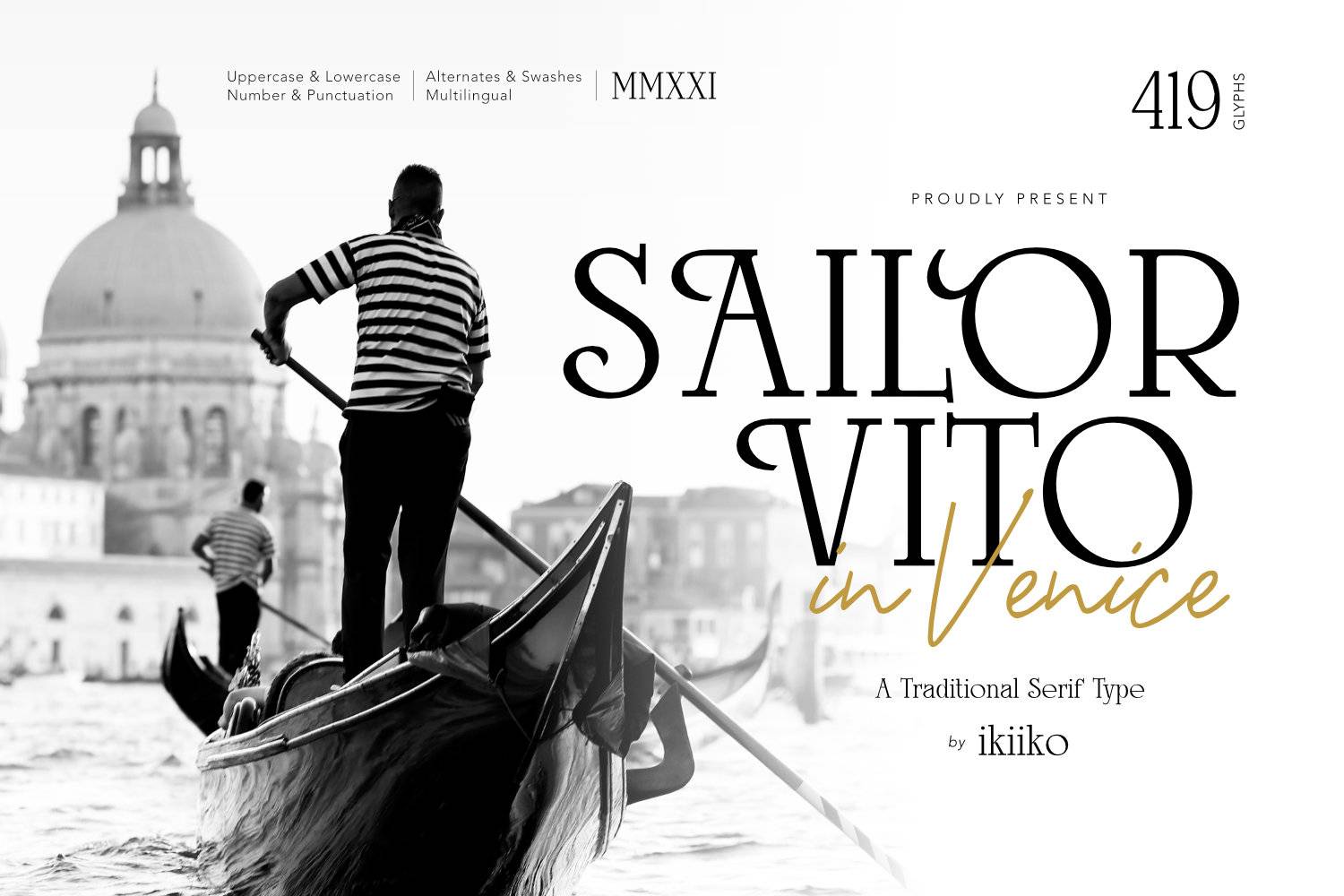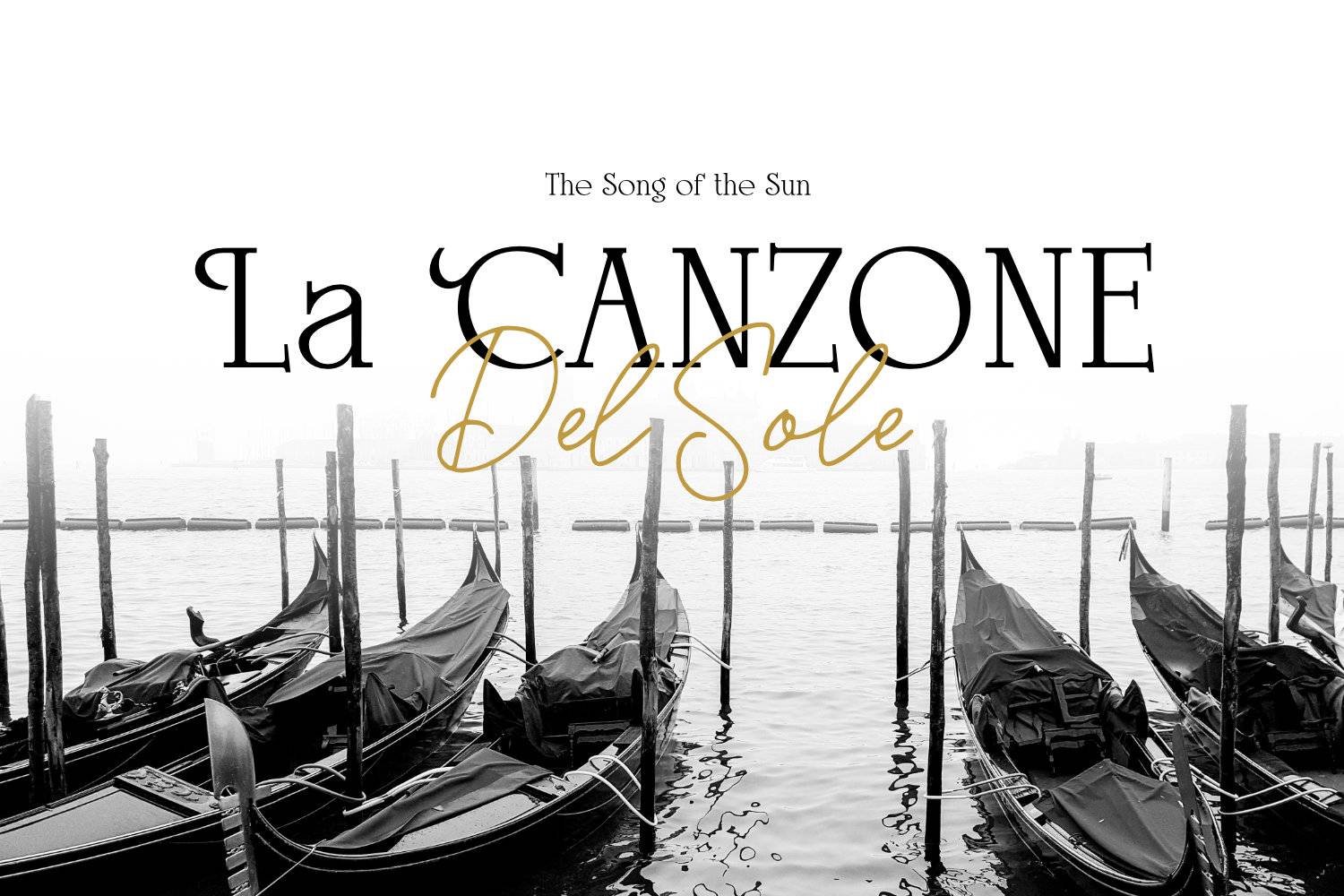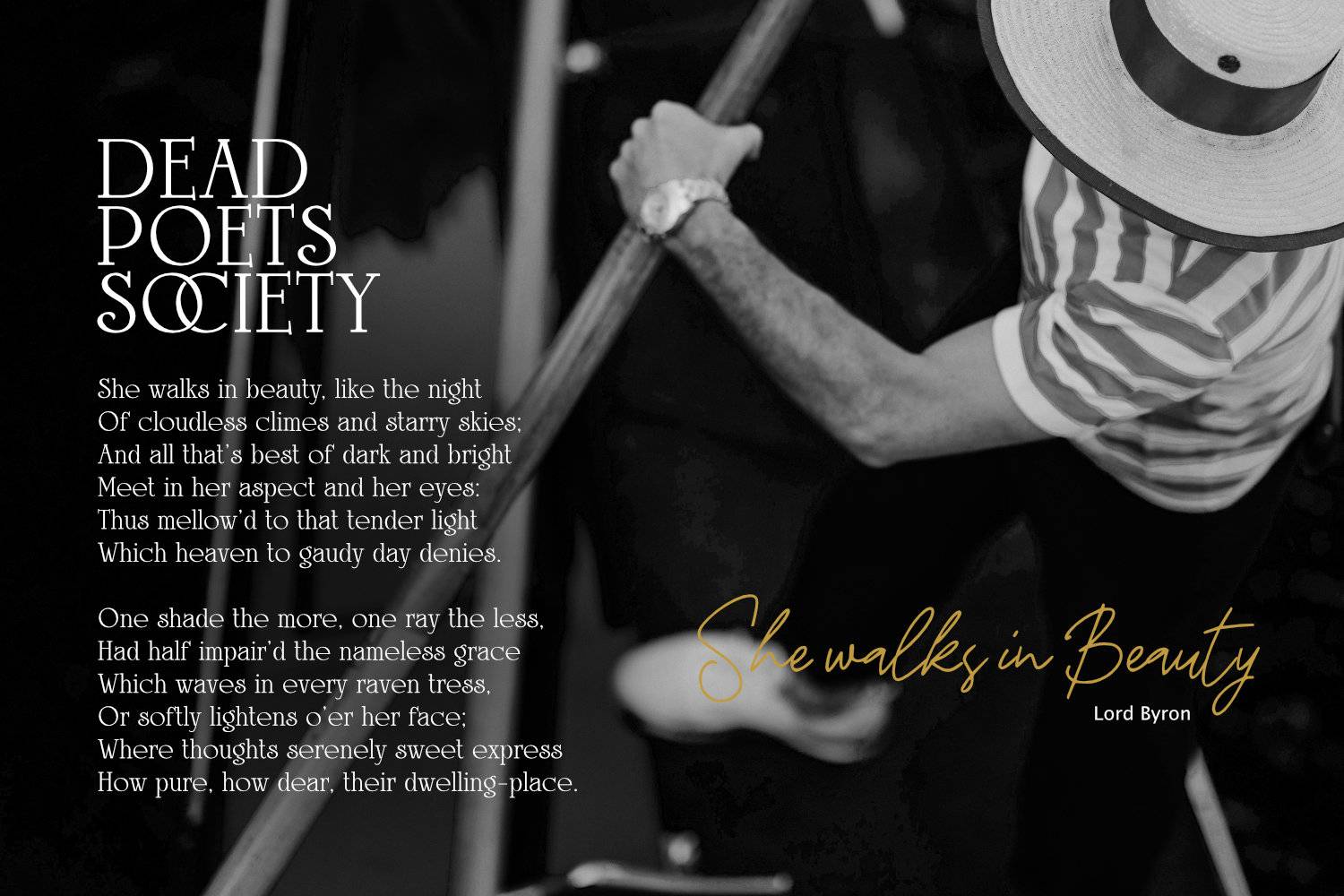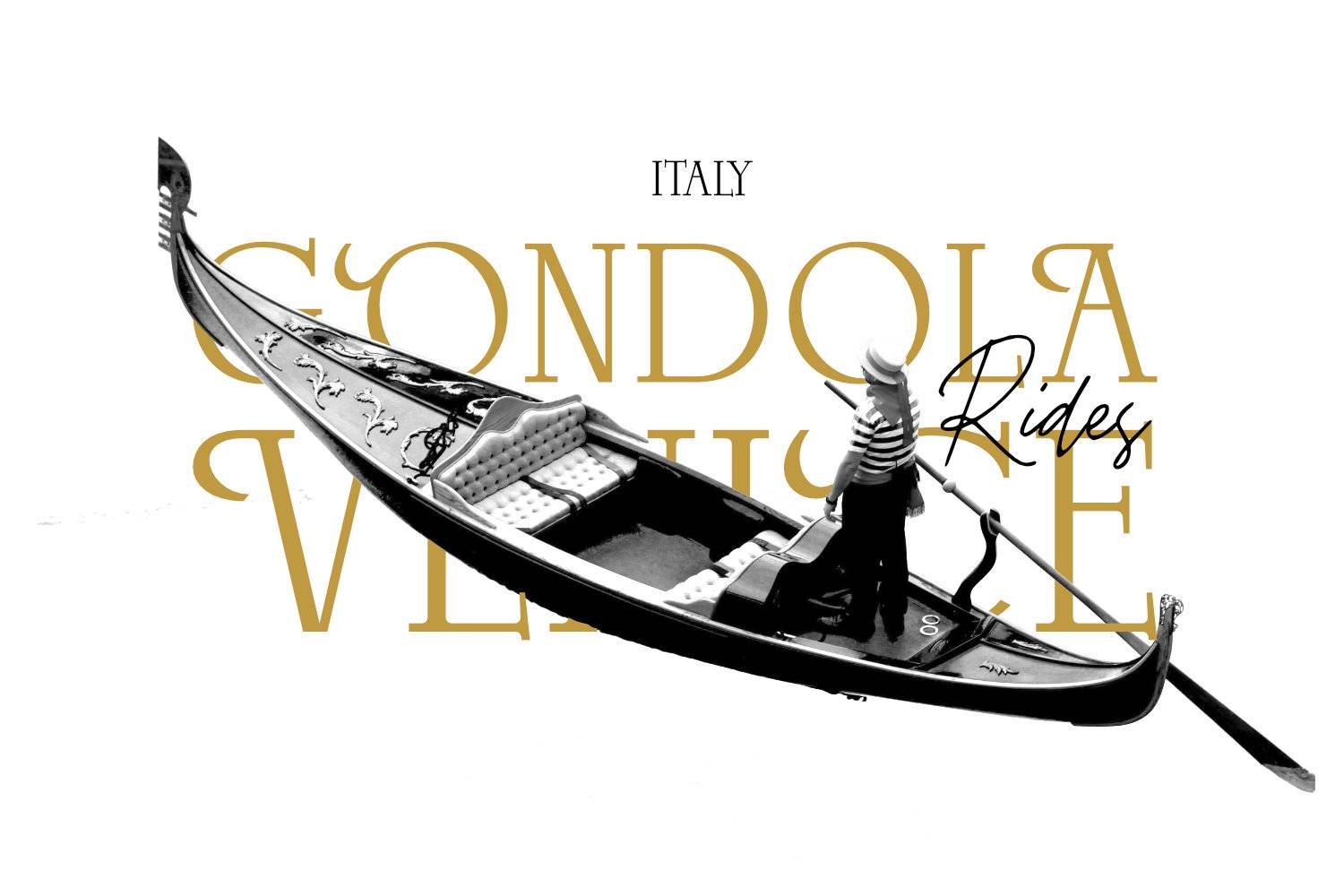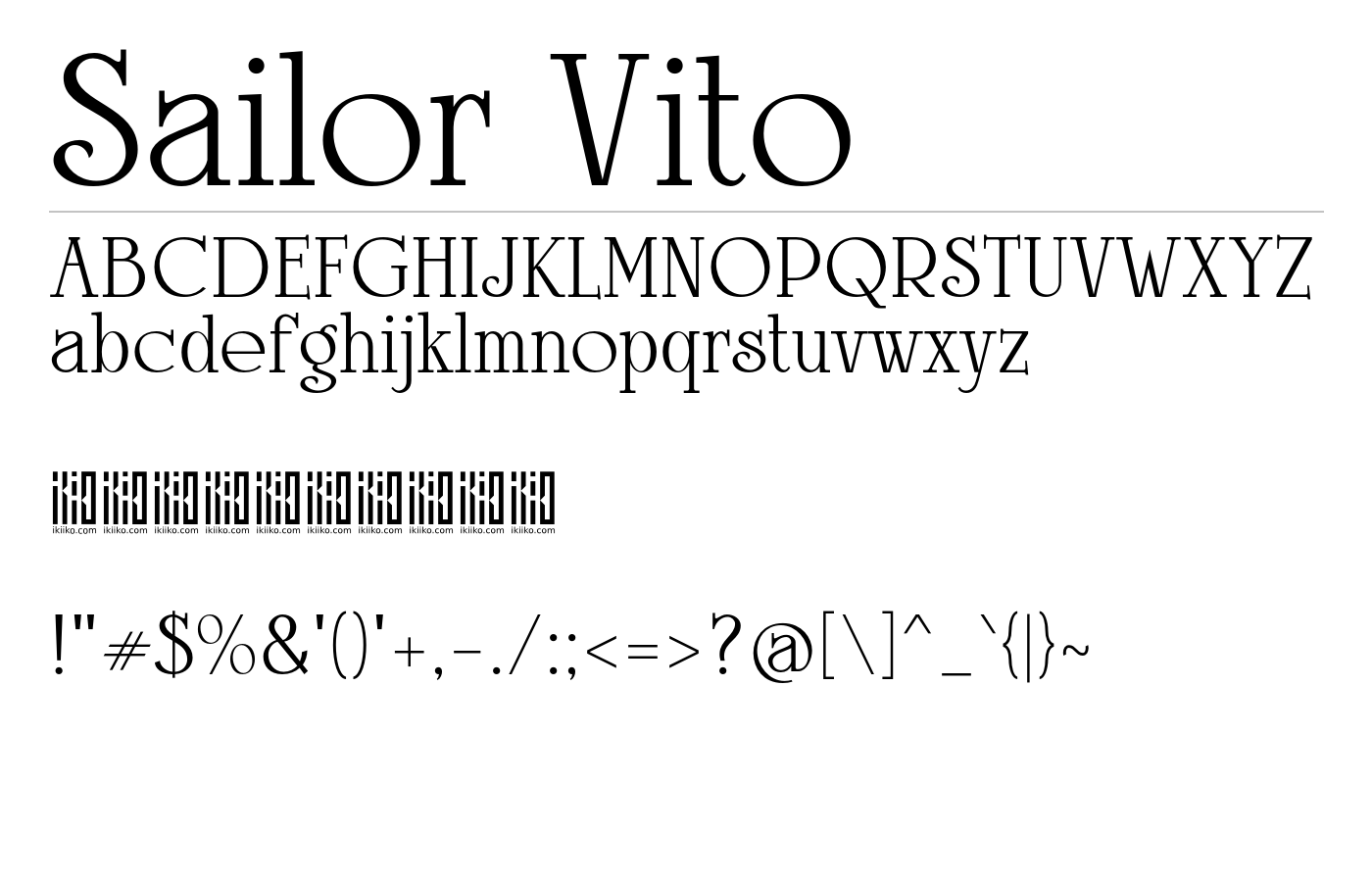
Sailor Vito is an elegant serif font characterized by its thin, delicate strokes and subtle contrast between thick and thin lines, giving it a refined and classic appearance. With a moderate x-height and distinct bracketed serifs, it balances readability with sophistication, making it perfect for upscale editorial design, luxury branding, and stylish headlines. This font’s graceful, timeless feel communicates professionalism and charm, ideal for projects needing a touch of tradition and elegance.
Sailor Vito Font
About Sailor Vito Font
| Font family | Sailor Vito Font |
| Release date | 2021-12-18 |
| Designer | Wahyu Eka Prasetya, Andhika Pradana |